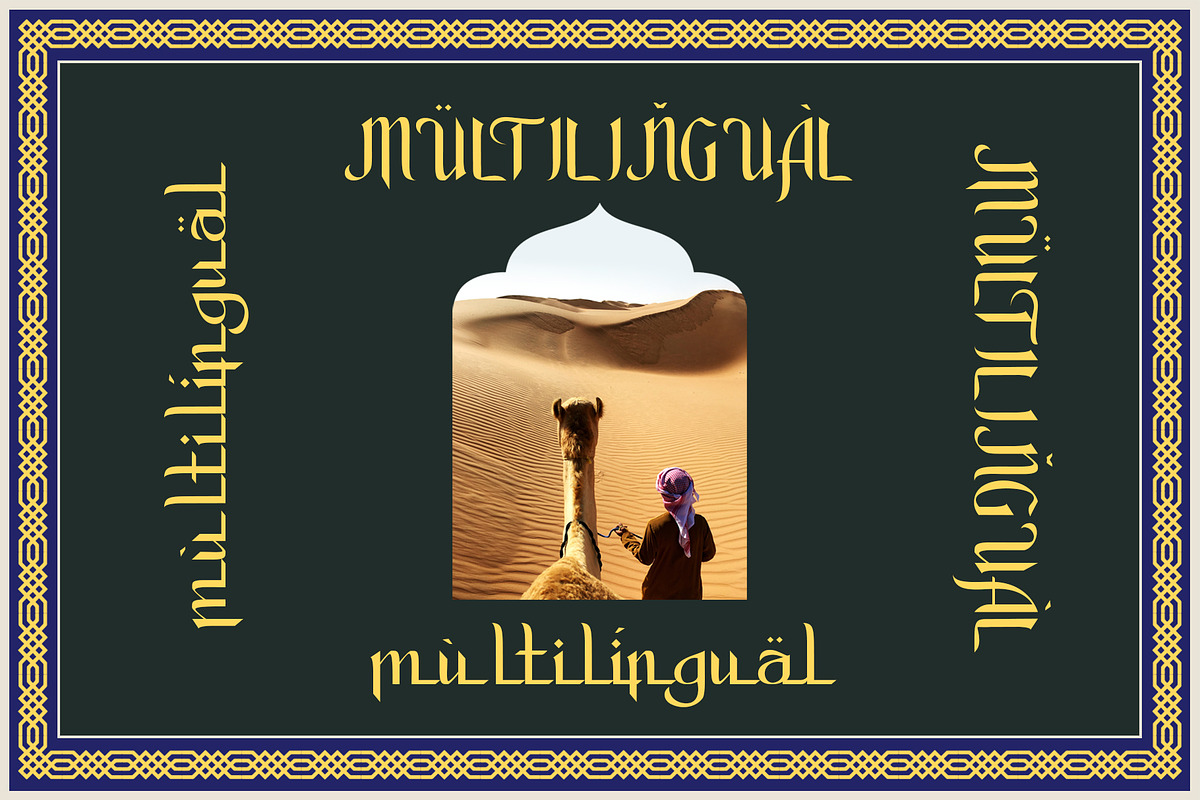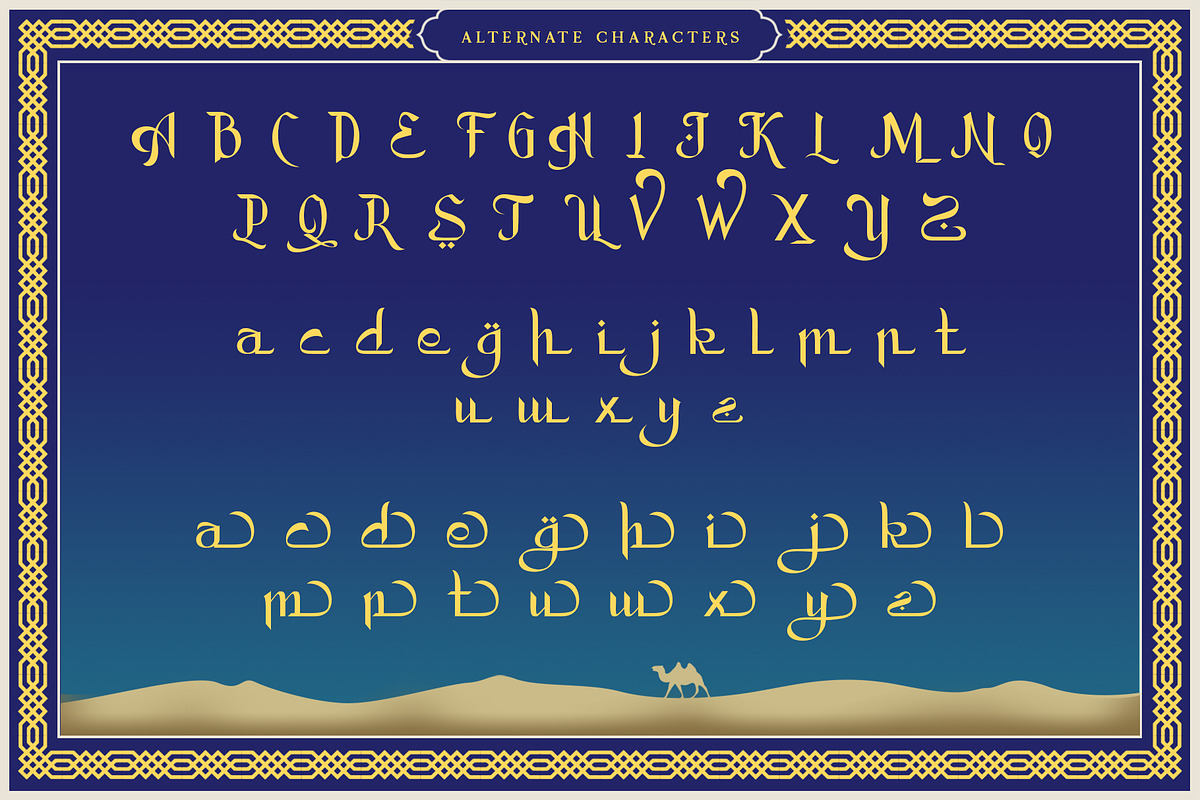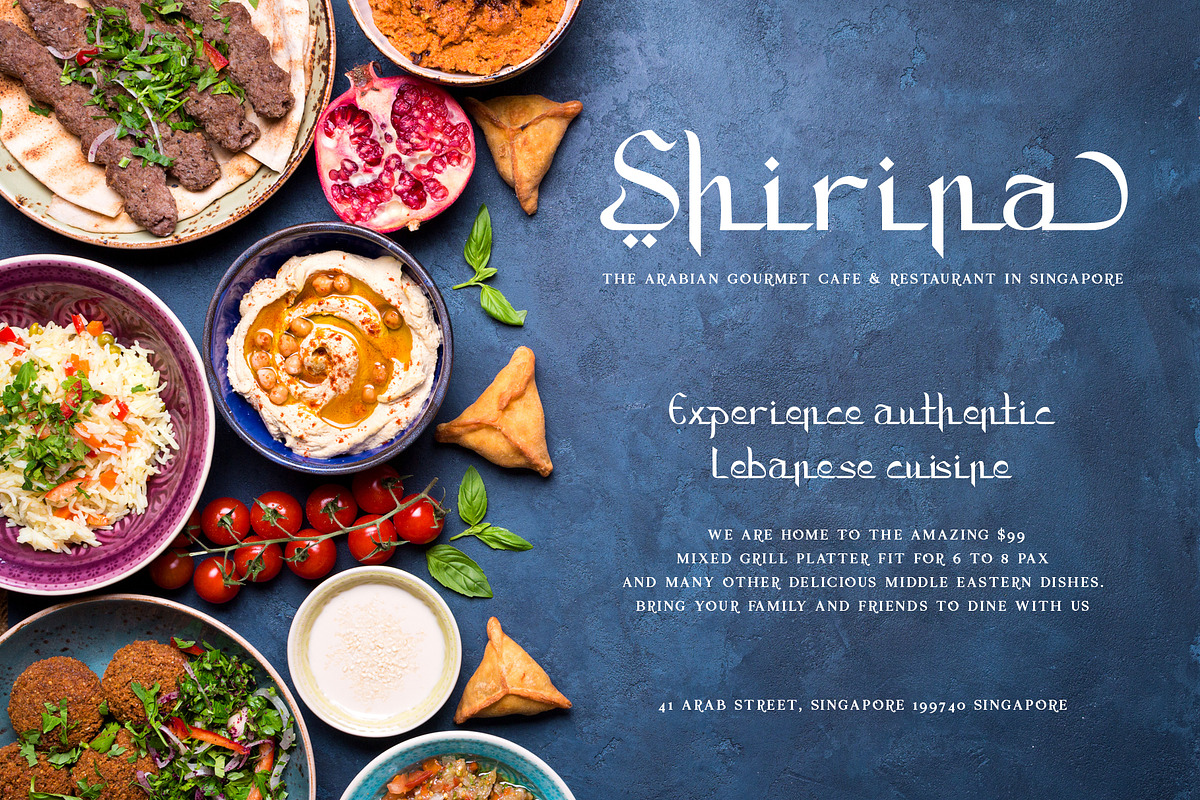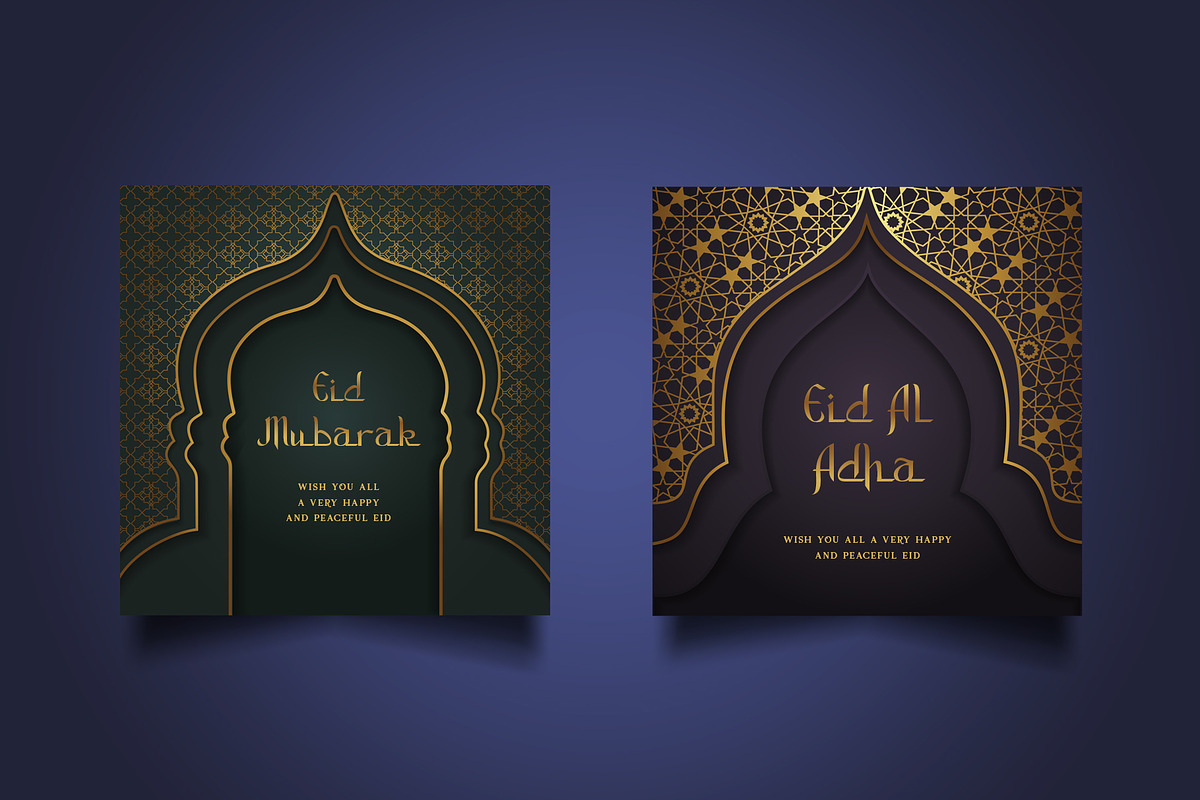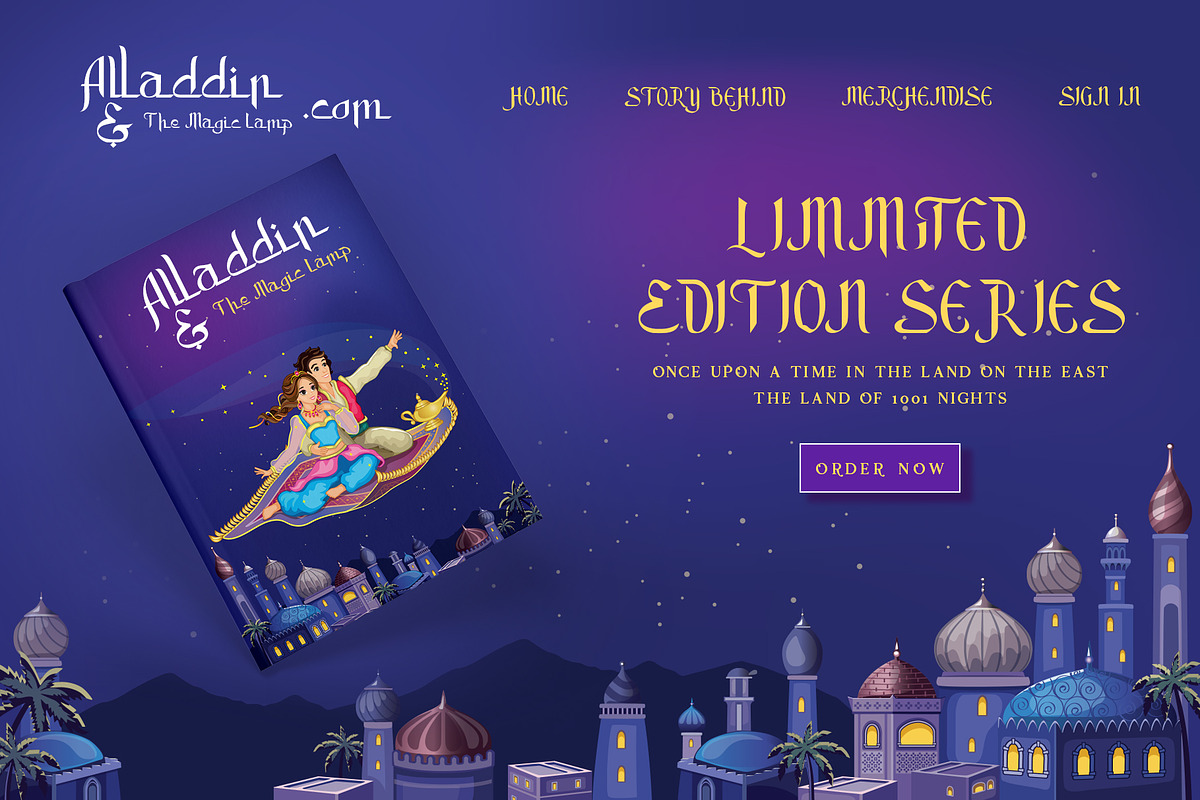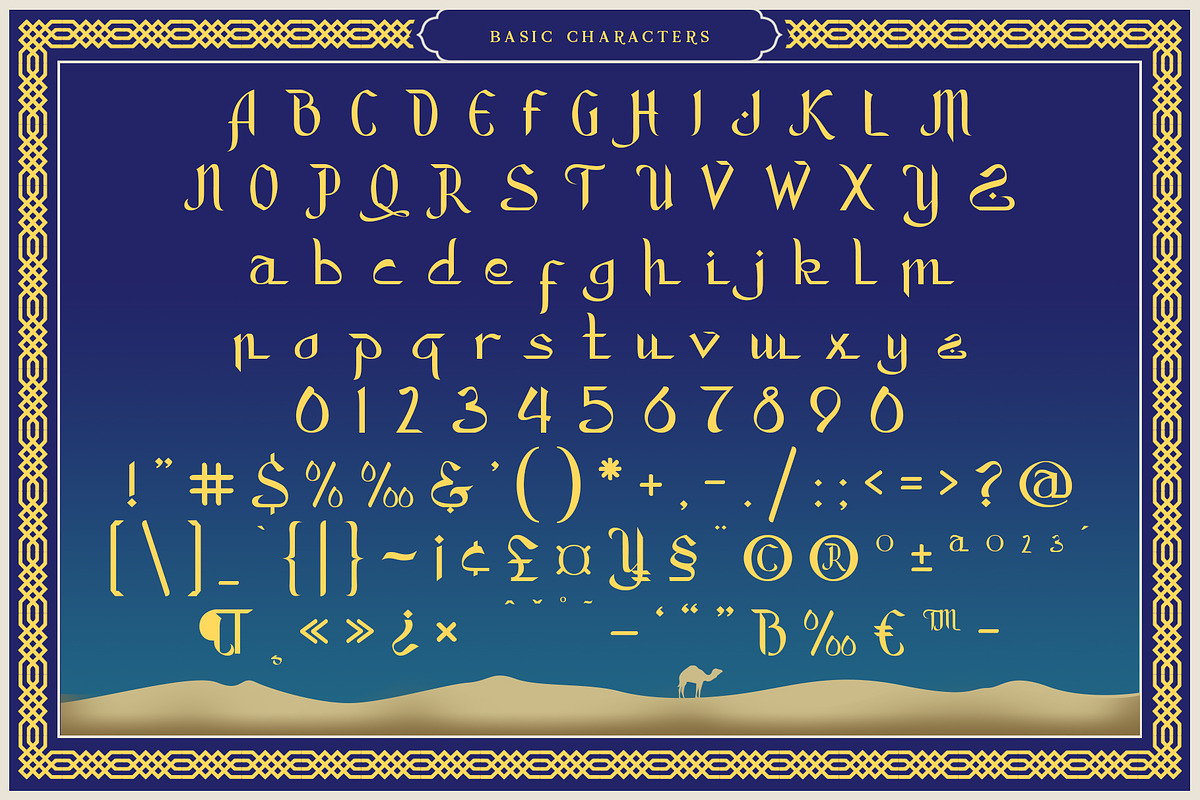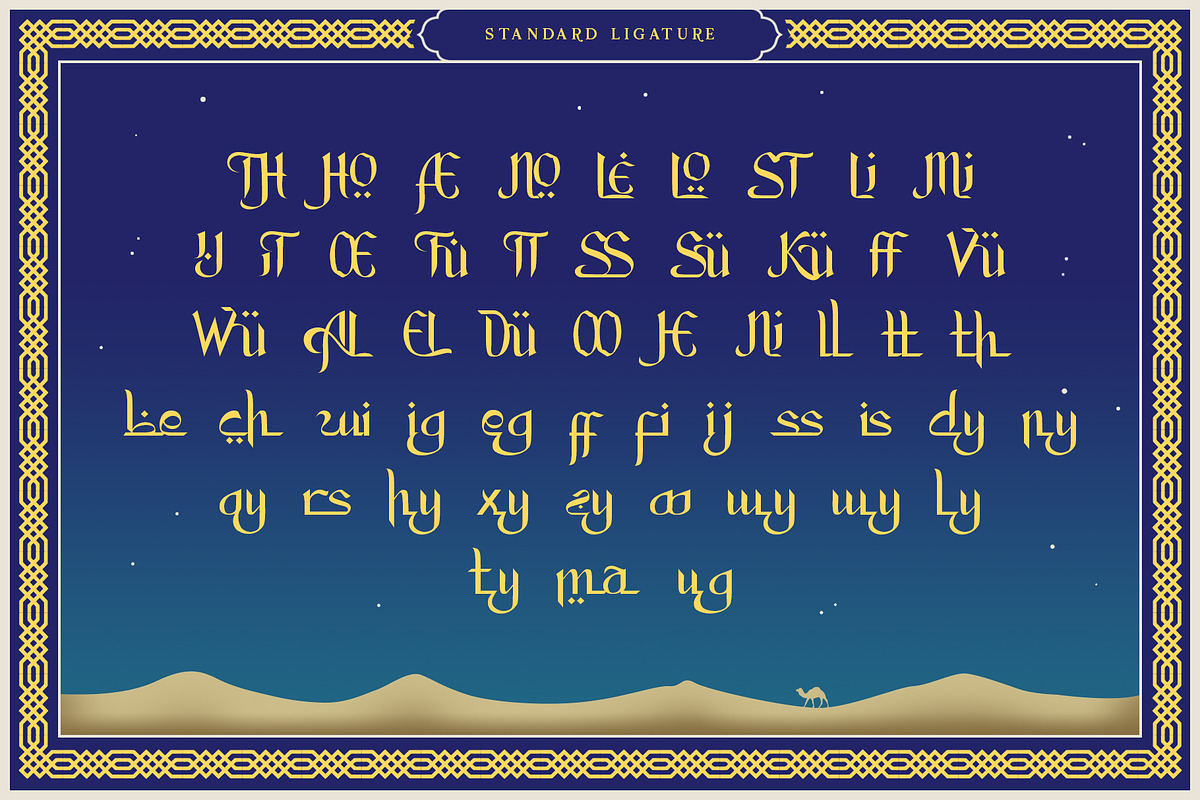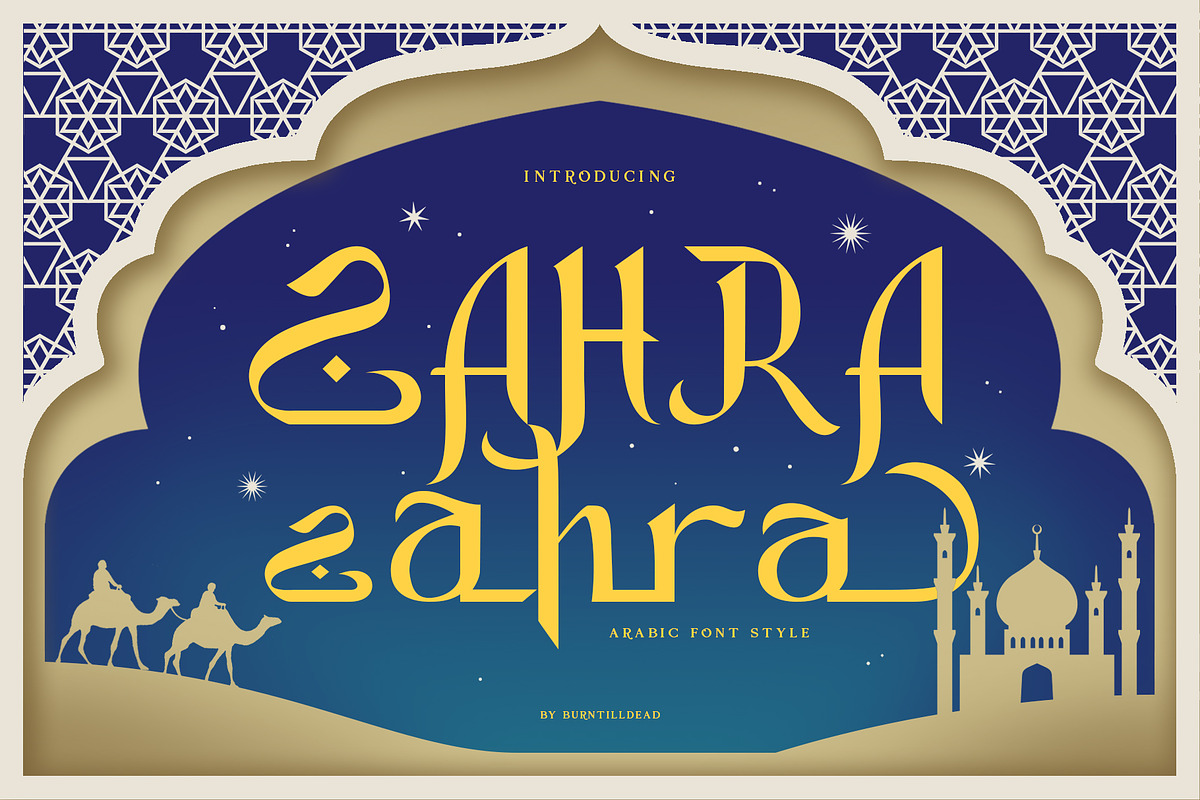
Zahra
Introducing "Zahra", a display typeface with Arabic style. Powered with ligature to make fluent combination & Multilingual language.
A-Z Character Set
a-z Character set
Numerals & Punctuations (OpenType Standard)
ligatures